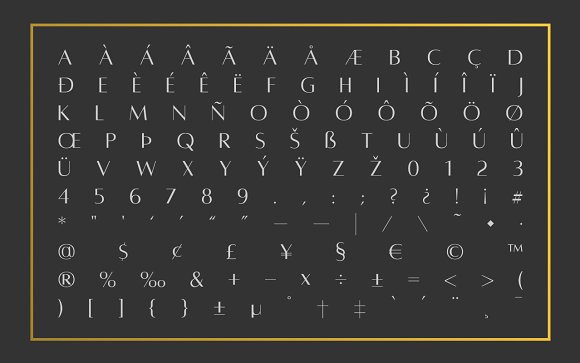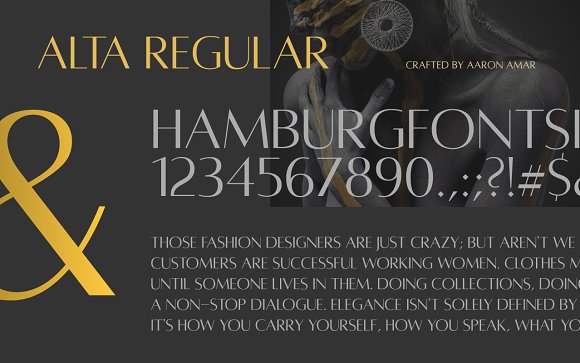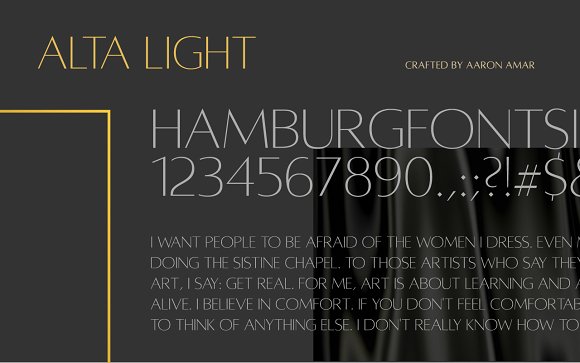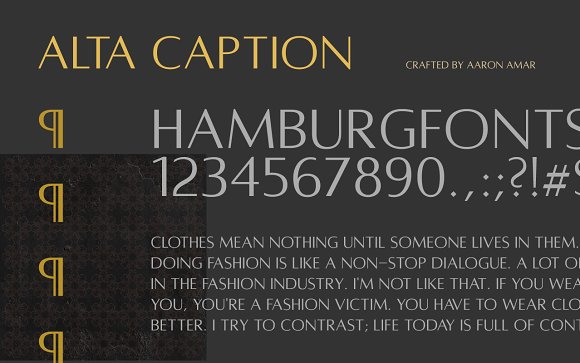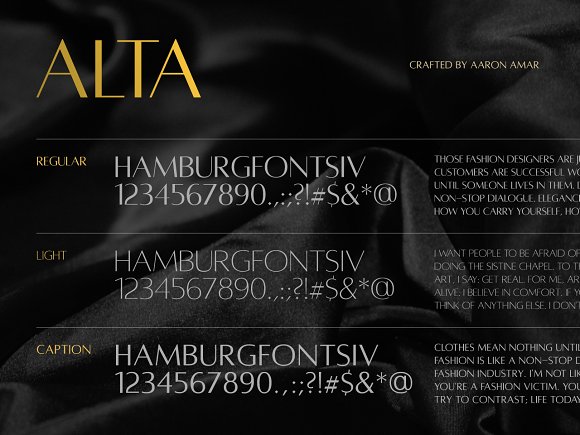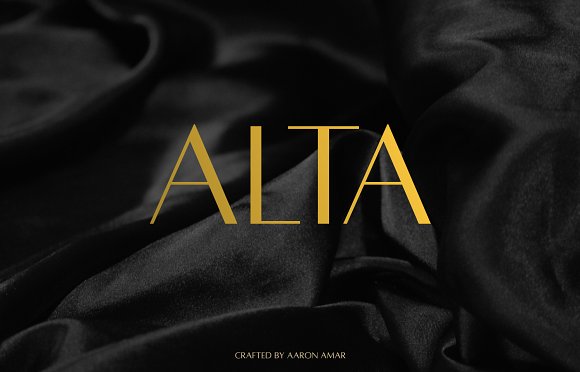
Alta Typeface (3 Weights)
Alta Typeface — A Sans-Serif All-Caps Display Humanist Typeface based on the aesthetics of Optima Typeface, originally created by Hermann Zapf.